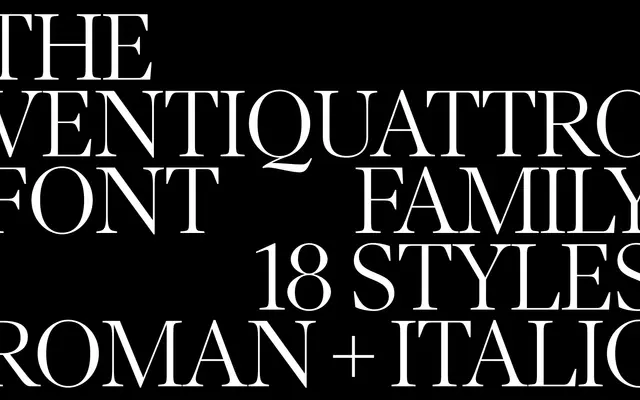
Ventiquattro specimen from Playtype
A serif typeface from Copenhagen-based Playtype, with minimal public detail available beyond its name and a short piece of editorial copy.
Ventiquattro is a typeface from Playtype whose page offers little technical specification beyond an evocative fragment of text. The name, Italian for twenty-four, hints at a considered conceptual framing. Without further detail on weights, widths or language support, its full scope remains unclear.
The page content is sparse but the name and Playtype's typical output suggest a refined serif; classified as transitional given Playtype's design tendencies, though limited detail is available.